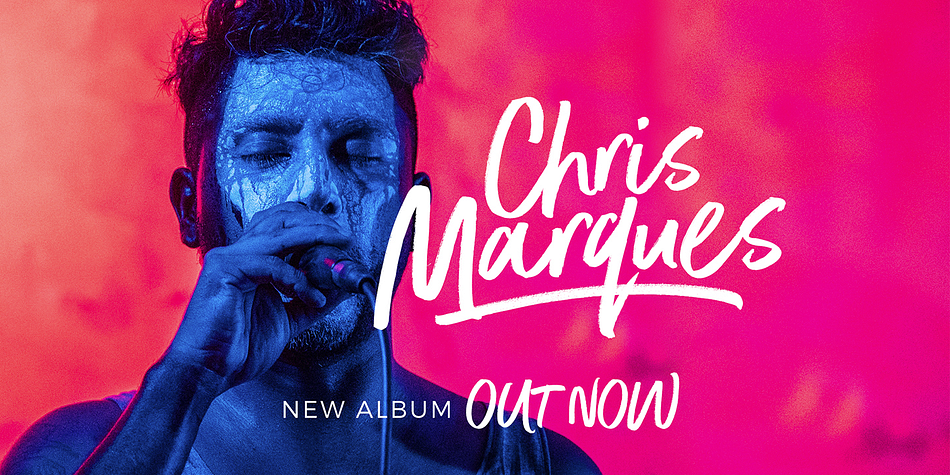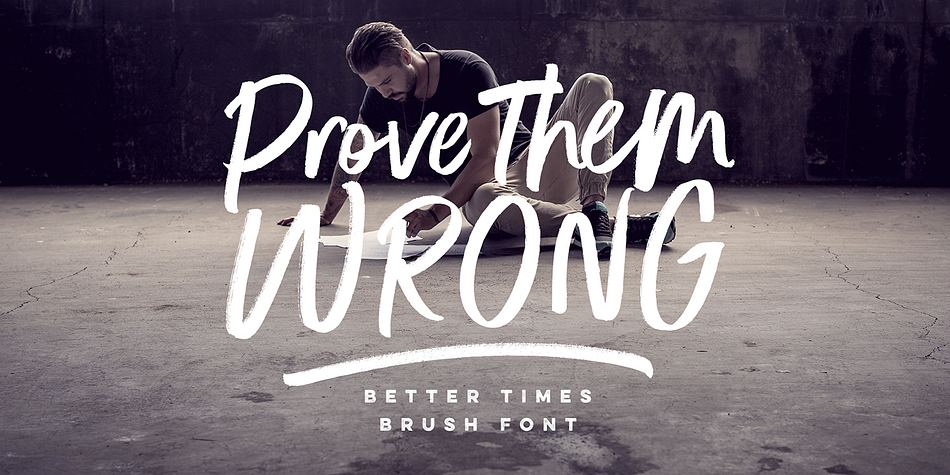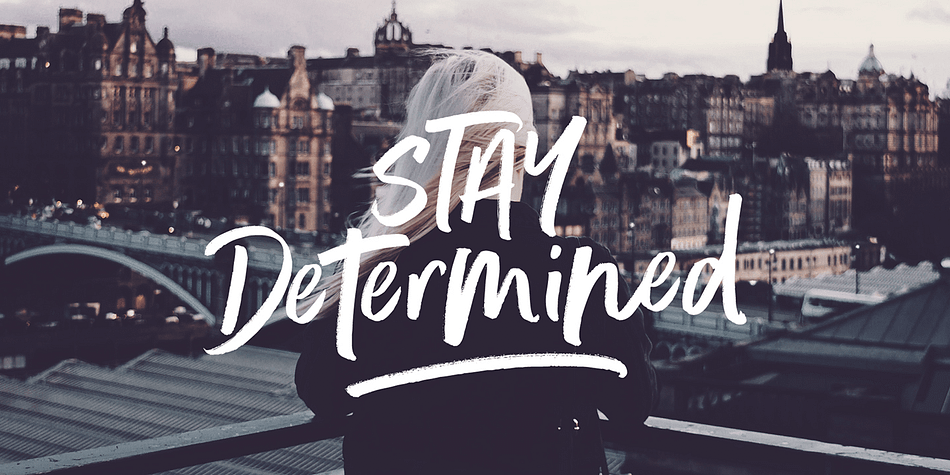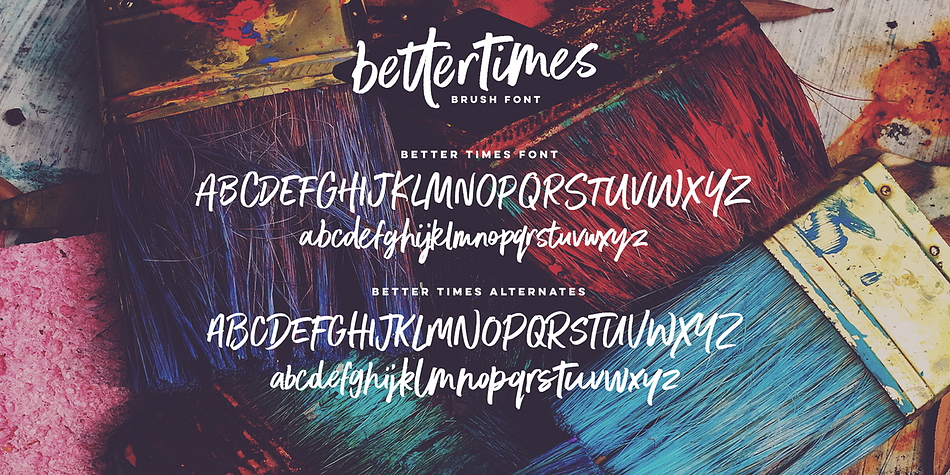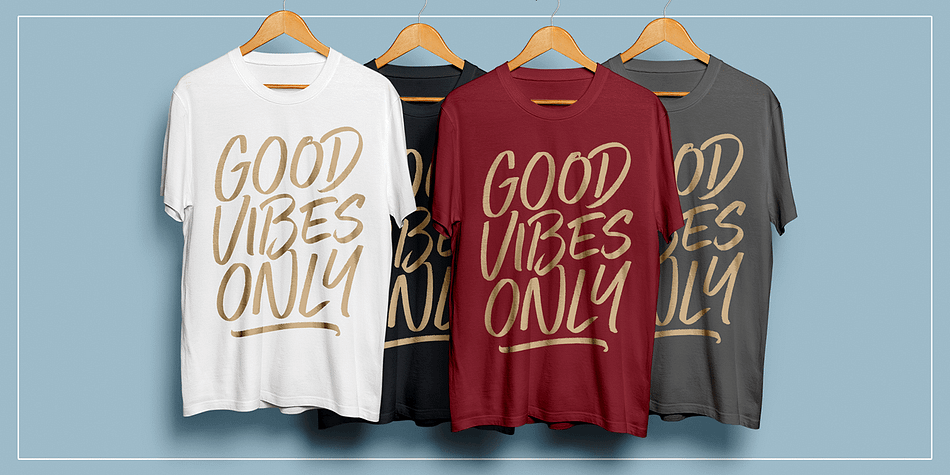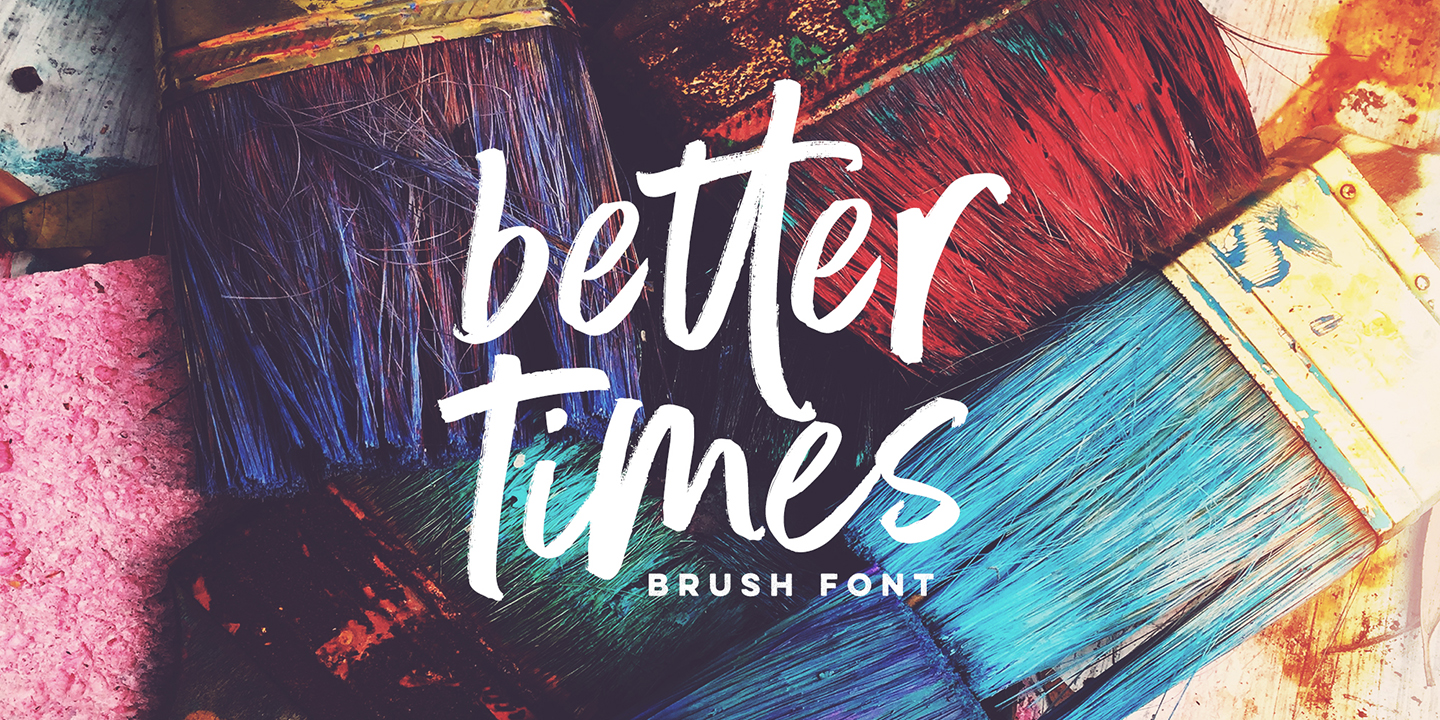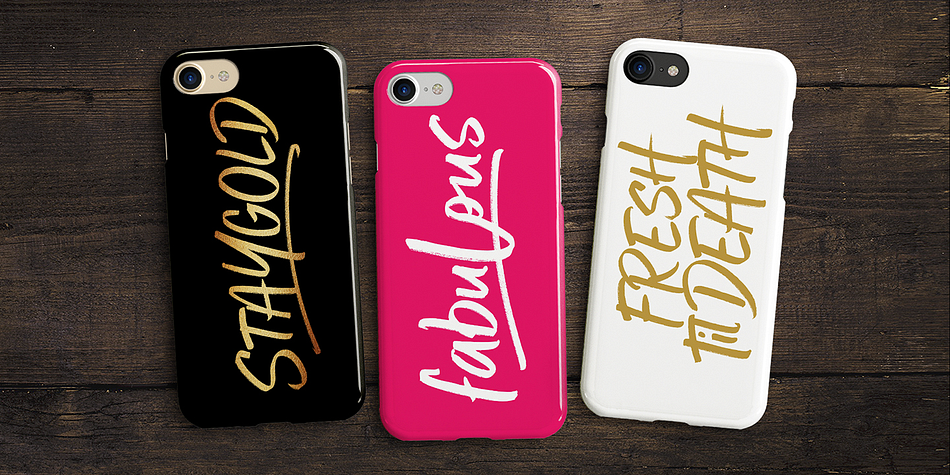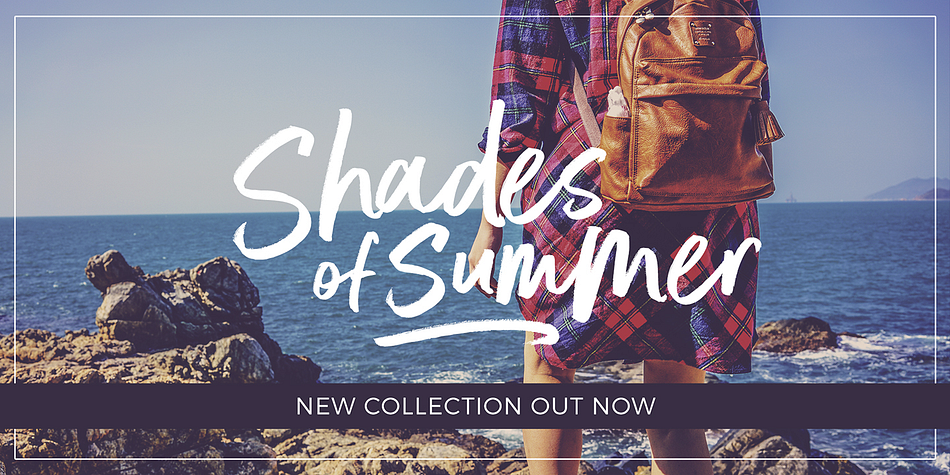
Designed by Sam Parrett, Better Times is a script and dingbat font family. This typeface has two styles and was published by Set Sail Studios.
Introducing Better Times, a handmade brush font! This bold, free-flowing and confident brush font is designed to be easily customisable with a full set of alternate characters and a bonus set of 20 swashes! Oh, and not to mention it looks great in both all-caps as well as lowercase - all of this together providing you with a huge range of layout options. Better Times is a brush font which you can use and enjoy again and again, for anything from promotional material and handwritten quotes, to product packaging, merchandise and branding projects.
Foundry | Set Sail Studios |
Styles | Script, Dingbat |
Designer | Sam Parrett |